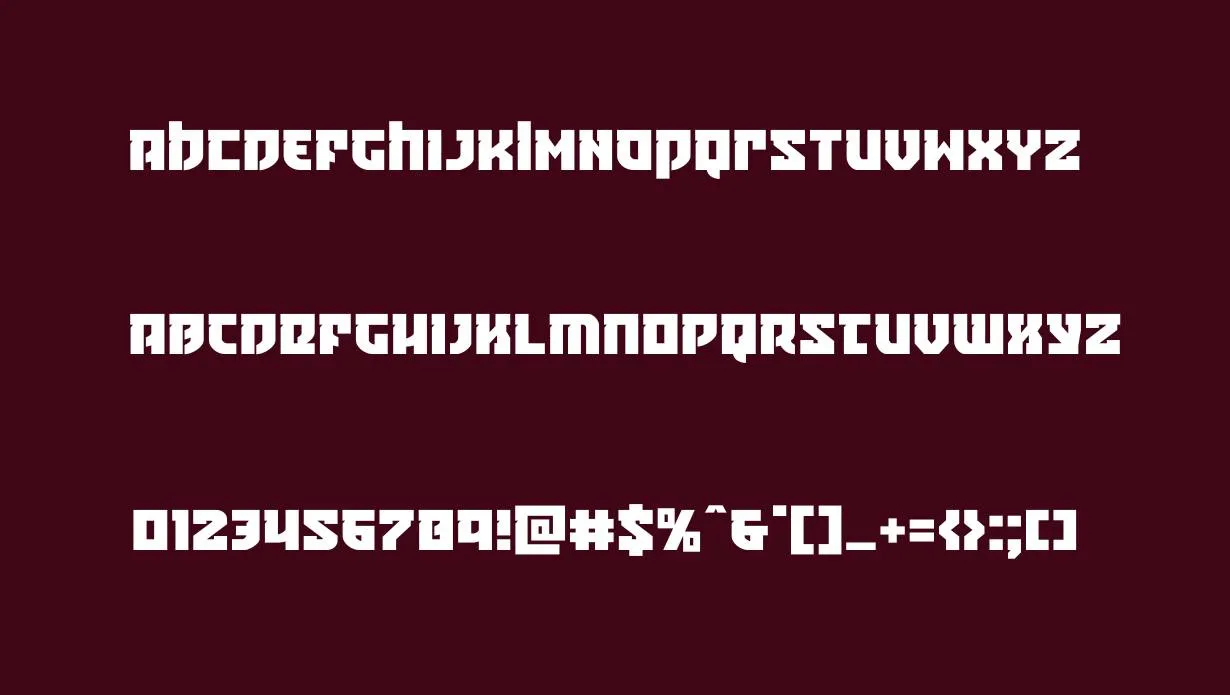
Crazy Ivan Font is an elegant typeface with sturdy strokes that one can utilize to make their project stand out from the rest. This typeface belongs to the techno font family. The designer of the typeface is Daniel Zadorozny and it was published by Iconian Fonts.
Crazy Ivan Font Info
| Name | Crazy Ivan Font |
| Designer | Iconian Fonts |
| Style | Techno |